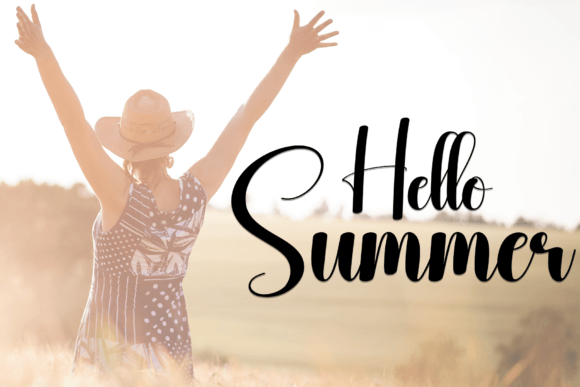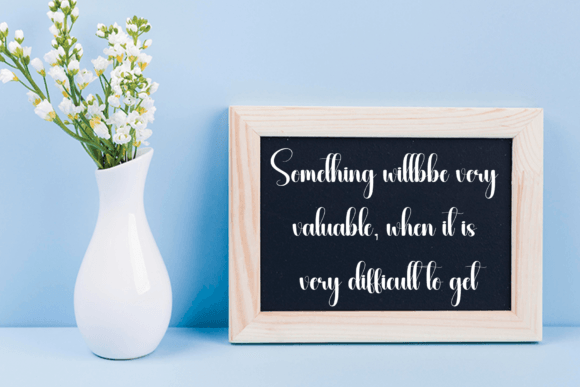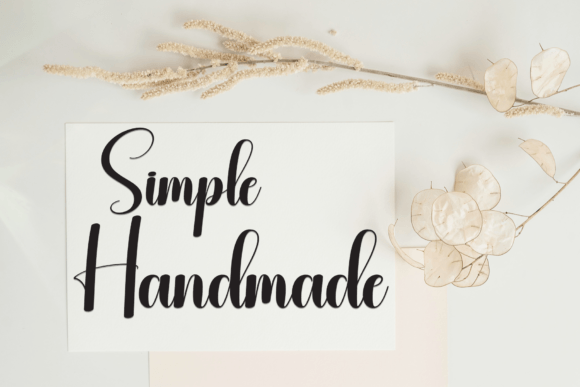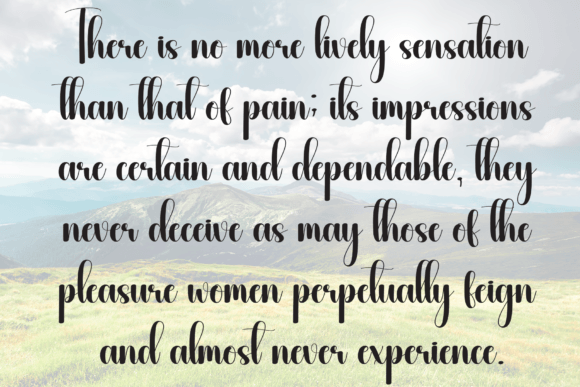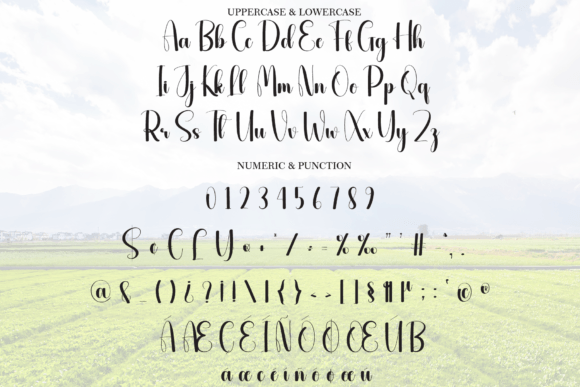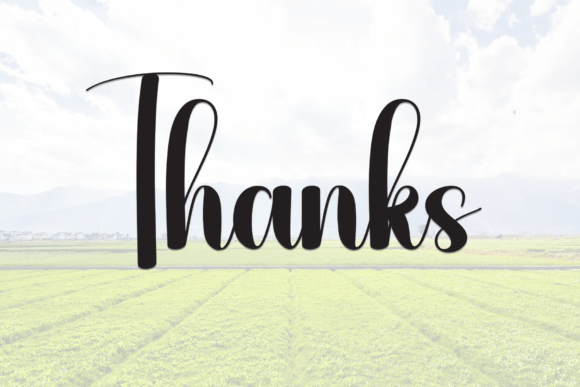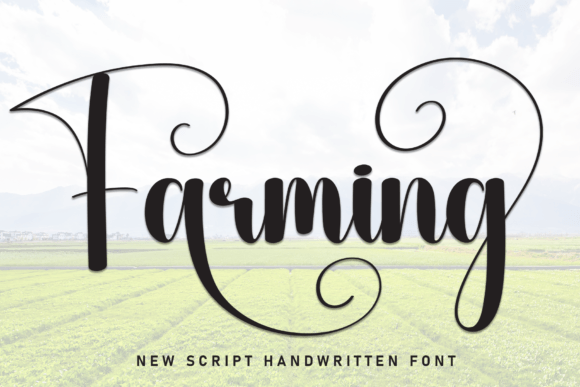
Farming Font: The Sweet and Friendly Handwritten Font for Your Creative Projects
Are you looking for a font that can add a personal touch to your designs? Do you want to create beautiful wedding invitations, cards, or other craft projects that stand out from the crowd? Look no further than Farming Font, a sweet and friendly handwritten font that’s perfect for adding a lovely touch to your creations.
What is Farming Font?
Farming Font is a fresh and casual handwritten font that’s designed to bring a sense of warmth and personality to your designs. With its smooth and flowing lines, this font is ideal for creating a wide range of projects, from wedding invitations and cards to craft projects and digital designs.
Key Features of Farming Font
- Handwritten style: Farming Font has a beautiful handwritten style that’s perfect for adding a personal touch to your designs.
- Fresh and casual: This font has a fresh and casual feel that’s ideal for creating designs that are relaxed and informal.
- Lovely touch: Farming Font is designed to add a lovely touch to your designs, making it perfect for creating beautiful wedding invitations, cards, and other craft projects.
- Easy to read: Despite its handwritten style, Farming Font is easy to read and understand, making it perfect for creating designs that need to communicate a message.
Uses for Farming Font
Farming Font is a versatile font that can be used for a wide range of projects, including:
- Wedding invitations: This font is perfect for creating beautiful wedding invitations that are personal and unique.
- Cards: Farming Font is ideal for creating cards for special occasions, such as birthdays, anniversaries, and holidays.
- Craft projects: This font can be used for a wide range of craft projects, including scrapbooking, journaling, and paper crafting.
- Digital designs: Farming Font can also be used for digital designs, such as social media graphics, blog posts, and email newsletters.
Why Choose Farming Font?
There are many reasons why you might choose Farming Font for your next project. Here are just a few:
- Unique and personal: Farming Font has a unique and personal style that’s perfect for adding a touch of personality to your designs.
- High-quality: Farming Font is a high-quality font that’s designed to produce beautiful results.
Tips for Using Farming Font
Here are a few tips for using Farming Font in your designs:
- Use it for headings and titles: Farming Font is perfect for use in headings and titles, where its handwritten style can really shine.
- Mix it with other fonts: This font can be mixed with other fonts to create a unique and interesting design.
- Experiment with colors: Farming Font can be used with a wide range of colors, so don’t be afraid to experiment and find the perfect combination for your design.
Farming Font is a sweet and friendly handwritten font that’s perfect for adding a personal touch to your designs. With its fresh and casual style, this font is ideal for creating a wide range of projects, from wedding invitations and cards to craft projects and digital designs. So why not give it a try and see the difference it can make?